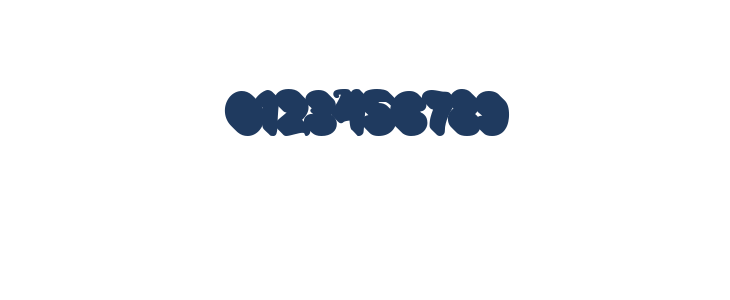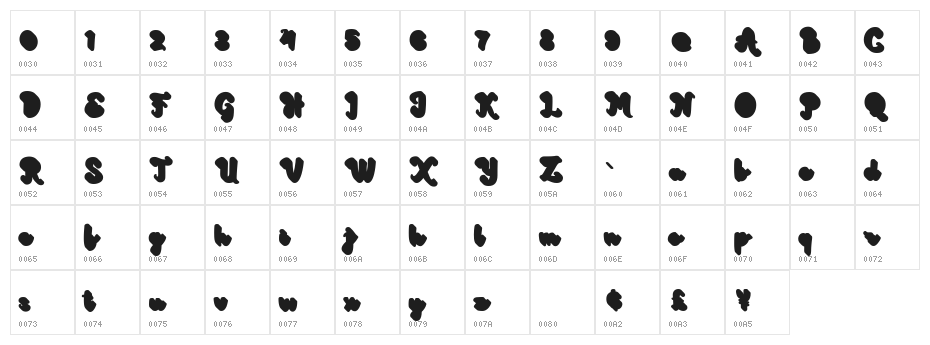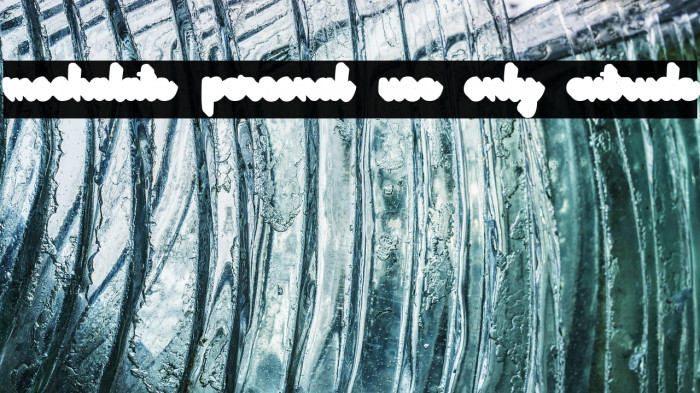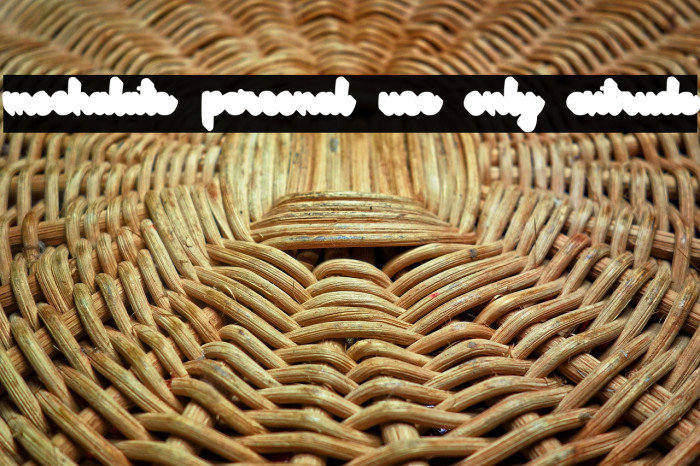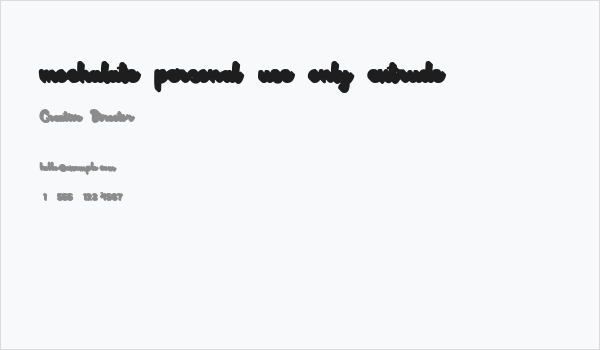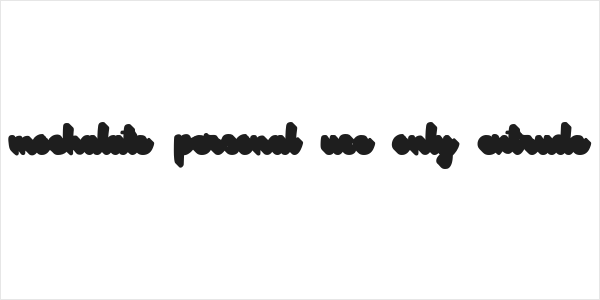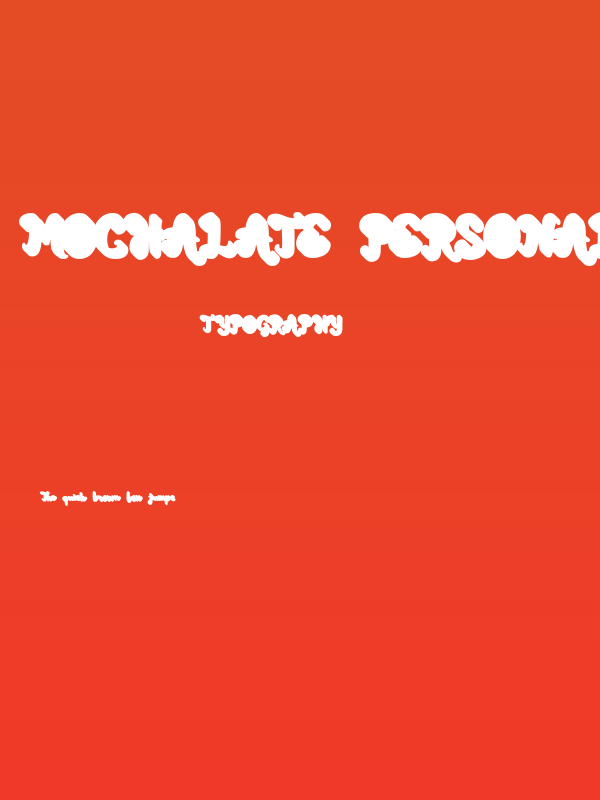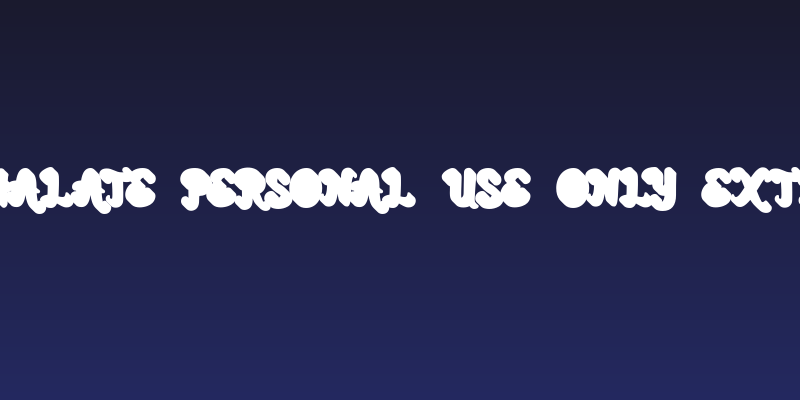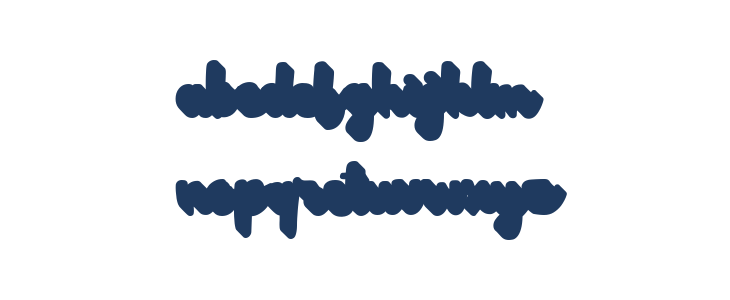
mochalate personal use only extrude Font
mochalate personal use only extrude Description
This font features a bold, playful design with a strong emphasis on rounded, bubble-like forms. The characters are heavily stylized, with exaggerated curves and a sense of movement that gives the font a dynamic and lively appearance. The thick strokes and solid fills create a sense of weight and presence, making it ideal for attention-grabbing headlines or creative projects. The font maintains a consistent thickness throughout, with minimal contrast between strokes, contributing to its cohesive and unified look. Its whimsical style is reminiscent of retro or cartoon aesthetics, making it suitable for projects that require a fun and informal tone.
| Overall Style | Playful, Retro, Whimsical |
| Proposed Projects | Ideal for children's book covers, playful branding, retro-themed posters, and creative event invitations. |